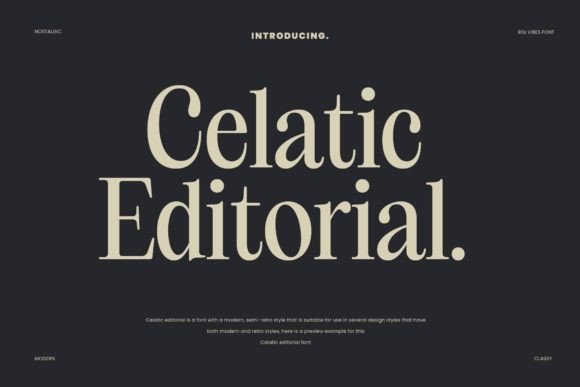
Discover the Timeless Elegance of Celatic Editorial Font
In the realm of typography, few fonts manage to capture the essence of both nostalgia and modernity as effectively as Celatic Editorial. This classy typeface has emerged as a versatile and sophisticated choice for designers seeking to infuse their projects with a blend of 90s vibes and contemporary elegance. Whether you’re working on book titles, logos, flyers, branding, banners, crafting, or invitations, Celatic Editorial offers a refined style and timeless appeal that can elevate any design.
Key Features of Celatic Editorial Font
- Unique Blend of Styles: Celatic Editorial seamlessly merges the retro charm of the 90s with modern design elements, creating a distinctive and captivating aesthetic.
- Versatility: This font is designed to be versatile, making it suitable for a wide range of applications, from print materials like books, flyers, and banners, to digital projects and branding.
- Elegance and Sophistication: The refined style of Celatic Editorial adds a touch of sophistication to any design, ensuring that your projects exude a polished and stylish look.
- Timeless Appeal: Unlike trends that fade over time, Celatic Editorial’s classic appeal ensures that your designs remain relevant and stylish for years to come.
Ideas for Using Celatic Editorial Font
Celatic Editorial’s adaptability makes it an excellent choice for various design projects. Here are some ideas to get you started:
- Book Titles and Publishing: Add a touch of elegance to your book covers and titles, making them stand out in the literary world.
- Logos and Branding: Create memorable and sophisticated logos that reflect your brand’s personality and values.
- Flyers and Brochures: Design eye-catching promotional materials that capture attention and convey your message with style.
- Banners and Posters: Make a statement with banners and posters that boast a refined and classy look.
- Crafting and DIY Projects: Add a professional touch to your crafting and DIY project designs, making them perfect for showcasing your creativity.
- Invitations and Events: Create stunning invitations for weddings, parties, and corporate events that set the tone for a sophisticated and memorable experience.
Tips for Getting the Best Results with Celatic Editorial
To maximize the impact of Celatic Editorial in your designs, consider the following tips:
- Pair with Complementary Fonts: Combine Celatic Editorial with other fonts that complement its style, creating a harmonious and visually appealing design.
- Adjust Size and Weight: Experiment with different sizes and weights of Celatic Editorial to add depth and hierarchy to your designs.
- Use High-Quality Images: When using Celatic Editorial in print or digital projects, ensure that your images are high-resolution to maintain a professional look.
- Maintain Readability: While Celatic Editorial is elegant, ensure that your text remains readable, especially in smaller sizes or when used for body text.
Why Choose Celatic Editorial Font?
In a world where design trends are constantly evolving, Celatic Editorial stands out for its unique blend of classic and contemporary elements. Here are a few reasons why designers and businesses are choosing Celatic Editorial:
- Unique Aesthetic: Celatic Editorial offers a distinctive look that can set your designs apart from the competition.
- Versatility: Its adaptability across various design projects makes it a valuable addition to any designer’s toolkit.
- Ease of Use: Despite its sophisticated appearance, Celatic Editorial is easy to use and integrate into your projects, making it accessible for designers of all skill levels.
- Timeless Appeal: With Celatic Editorial, you can create designs that won’t go out of style anytime soon, saving you time and resources in the long run.
Step into Sophistication with Celatic Editorial
Celatic Editorial Font is more than just a typeface; it’s a design statement that combines the best of both worldsโretro charm and modern elegance. Its versatility, timeless appeal, and sophisticated look make it an ideal choice for a wide range of projects. Whether you’re a professional designer or a DIY enthusiast, Celatic Editorial offers the tools you need to create polished, stylish, and memorable designs. Step into a world of sophistication with Celatic Editorial and discover how this classy font can elevate your creative projects.